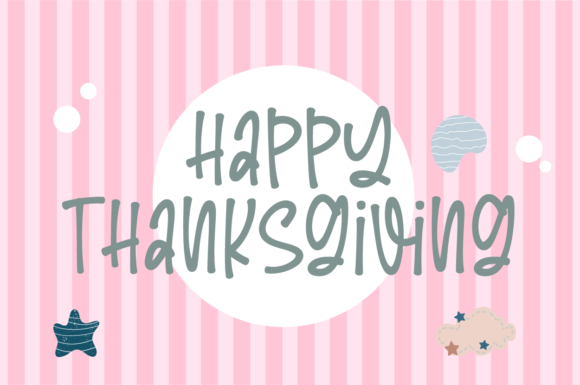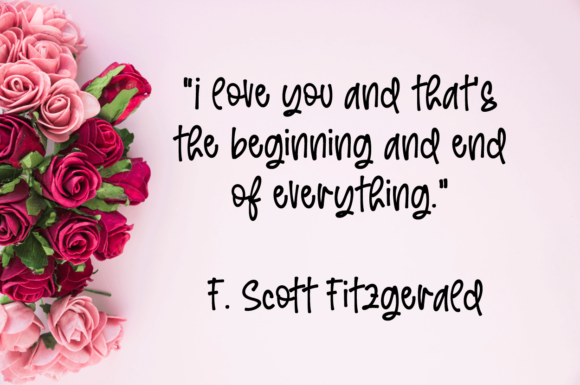
Vibe Sparkley Font
db-ku.com - Script & Handwritten -- Vibe Sparkley is a unique and cute handwritten font. Its friendly feel makes this font incredibly versatile, fitting a wide range of contexts. It looks stunning on thank you cards, quotes, greeting cards, logos, business cards and every other design which needs a work of art.